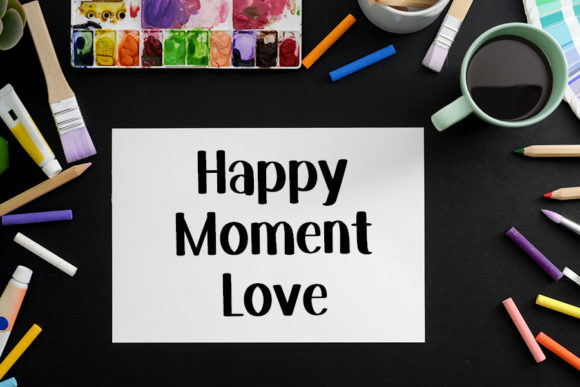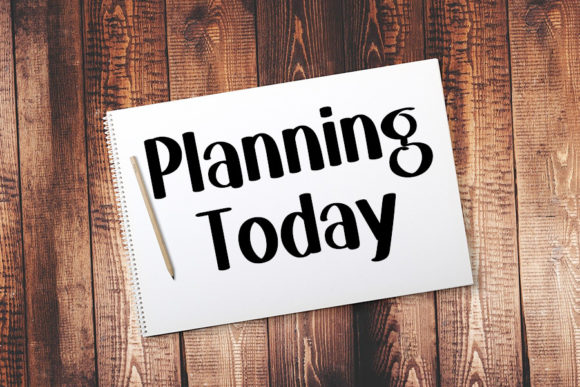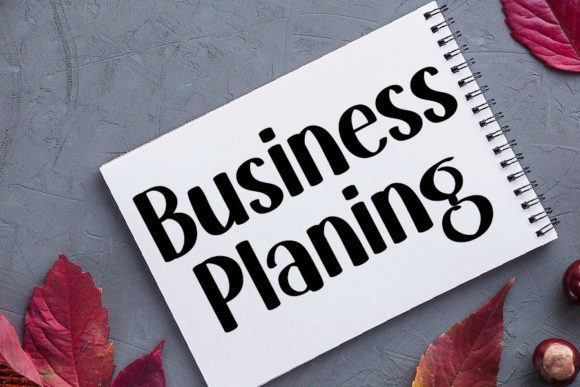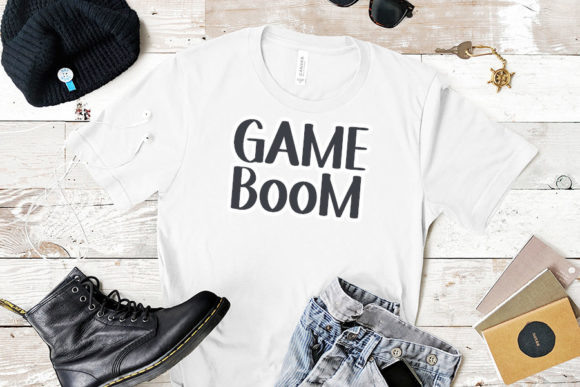
Introduction to Sky Letter Font Font
Fonts play a crucial role in design, and the Sky Letter Font font is a typeface that brings both character and versatility to any project. Whether you’re working on a branding project, a website, or a print design, the Sky Letter Font font offers a unique style that can elevate your work.
Sky Letter a is a casual script font.
Fall in love with its incredibly versatile style and use it to create gorgeous wedding invitations, beautiful stationary art, eye-catching social media posts, and much more .
Key Features of Sky Letter Font Font
Why Choose Sky Letter Font Font?
The Sky Letter Font font is more than just a typeface – it’s a design tool that helps you communicate your message with style and clarity. Its unique character set and versatile design make it suitable for a wide range of applications, from elegant invitations to bold headlines.
With its carefully crafted letterforms and balanced proportions, the Sky Letter Font font ensures readability and visual appeal across all mediums.
What makes Sky Letter Font font special?
The Sky Letter Font font stands out with its unique design, exceptional readability, and versatility across various design applications.